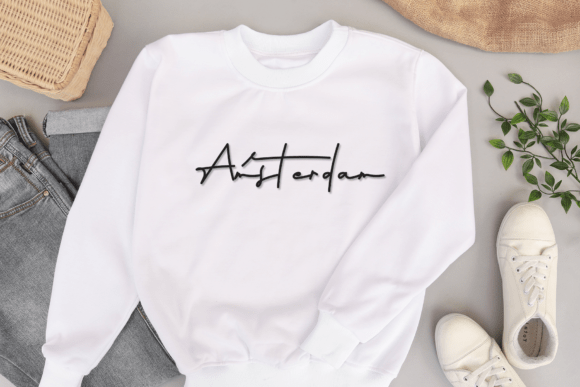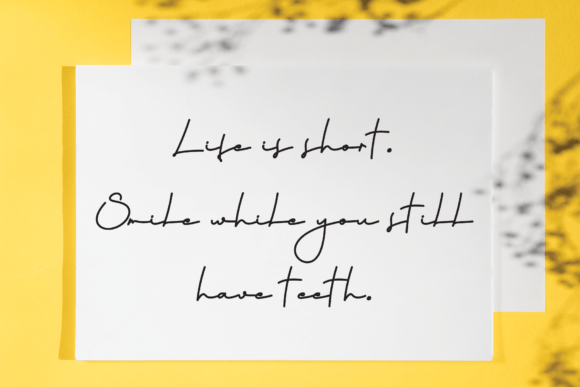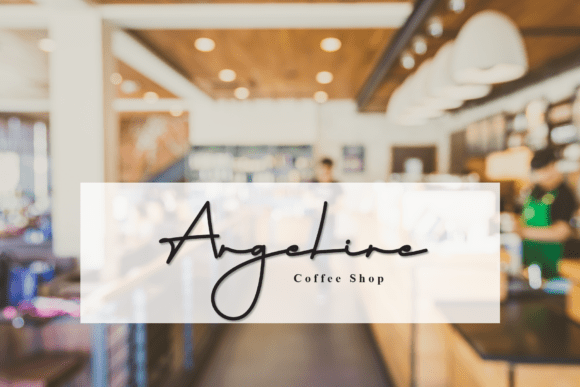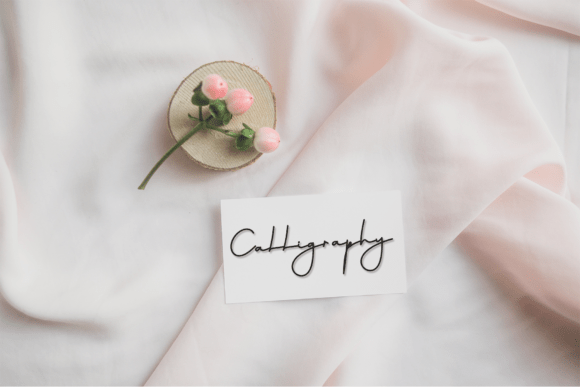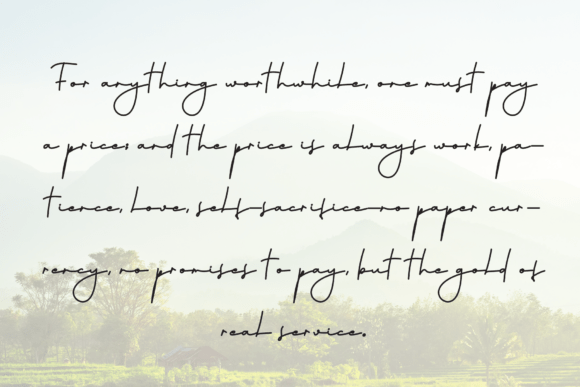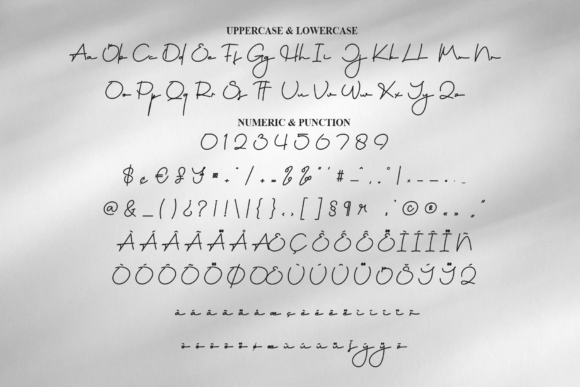
Discover the Effortless Charm of Caution Font: A Minimalist’s Dream
In the world of typography, sometimes less is more. For designers and crafters seeking a font that embodies the essence of modern minimalism, look no further than Caution. This simple handwritten font is designed to strip away the complexity and bring forth the raw, authentic charm that’s perfect for projects requiring a touch of understated cool and effortless grace.
The Anatomy of Caution Font
Caution font boasts wide, sweeping horizontal connectors that give it a distinctive, fluid feel. Its organic, low-profile letterforms are crafted to convey a sense of simplicity and elegance, making it an excellent choice for a variety of applications. From chic fashion branding to editorial social media quotes, modern lifestyle photography watermarks, and minimalist stationery, Caution font is the ultimate choice for those who appreciate the beauty of subtlety.
Characteristics of Caution Font
• Simple yet Expressive: Caution font’s simplicity is its greatest strength. It conveys a sense of effortlessness and nonchalance, perfect for brands and projects that want to appear relaxed and approachable.
• Handwritten with a Personal Touch: Despite its simplicity, Caution font retains a personal, handwritten feel that adds warmth and character to any project.
• Versatile: Caution font is incredibly versatile, suitable for a wide range of applications, from digital media to print materials.
• Modern and Fresh: Its clean lines and minimalist aesthetic ensure that Caution font always looks modern and fresh, perfect for projects that require a contemporary feel.
Use Cases for Caution Font
Caution font’s versatility makes it suitable for various design projects. Here are some of the best use cases:
• Chic Fashion Branding: Caution font’s understated elegance makes it perfect for fashion brands looking to convey a sense of sophistication and style.
• Editorial Social Media Quotes: Add a touch of personality to your social media quotes with Caution font’s unique, handwritten charm.
• Modern Lifestyle Photography Watermarks: Caution font’s simplicity and elegance make it an excellent choice for watermarks on lifestyle photography, adding a professional touch without overpowering the image.
• Minimalist Stationery: Create beautiful, understated stationery with Caution font, perfect for those who appreciate the art of simplicity.
Why Choose Caution Font?
In a world where typography can often be loud and overwhelming, Caution font offers a refreshing alternative. Its simplicity, elegance, and versatility make it an excellent choice for designers and crafters looking to add a touch of understated cool to their projects.
By choosing Caution font, you’re opting for a typography solution that:
• Embodies the essence of modern minimalism
• Conveys a sense of effortlessness and nonchalance
• Is versatile and suitable for various design projects
• Retains a personal, handwritten feel
Caution font is more than just a typography solution – it’s a design statement. It’s perfect for those who appreciate the beauty of simplicity and the power of understated elegance. Whether you’re a designer, crafter, or simply someone who appreciates the art of typography, Caution font is an excellent choice for any project that requires a touch of modern minimalism.
So, why not strip away the complexity and embrace the raw, authentic charm of Caution font? Your design projects will thank you.